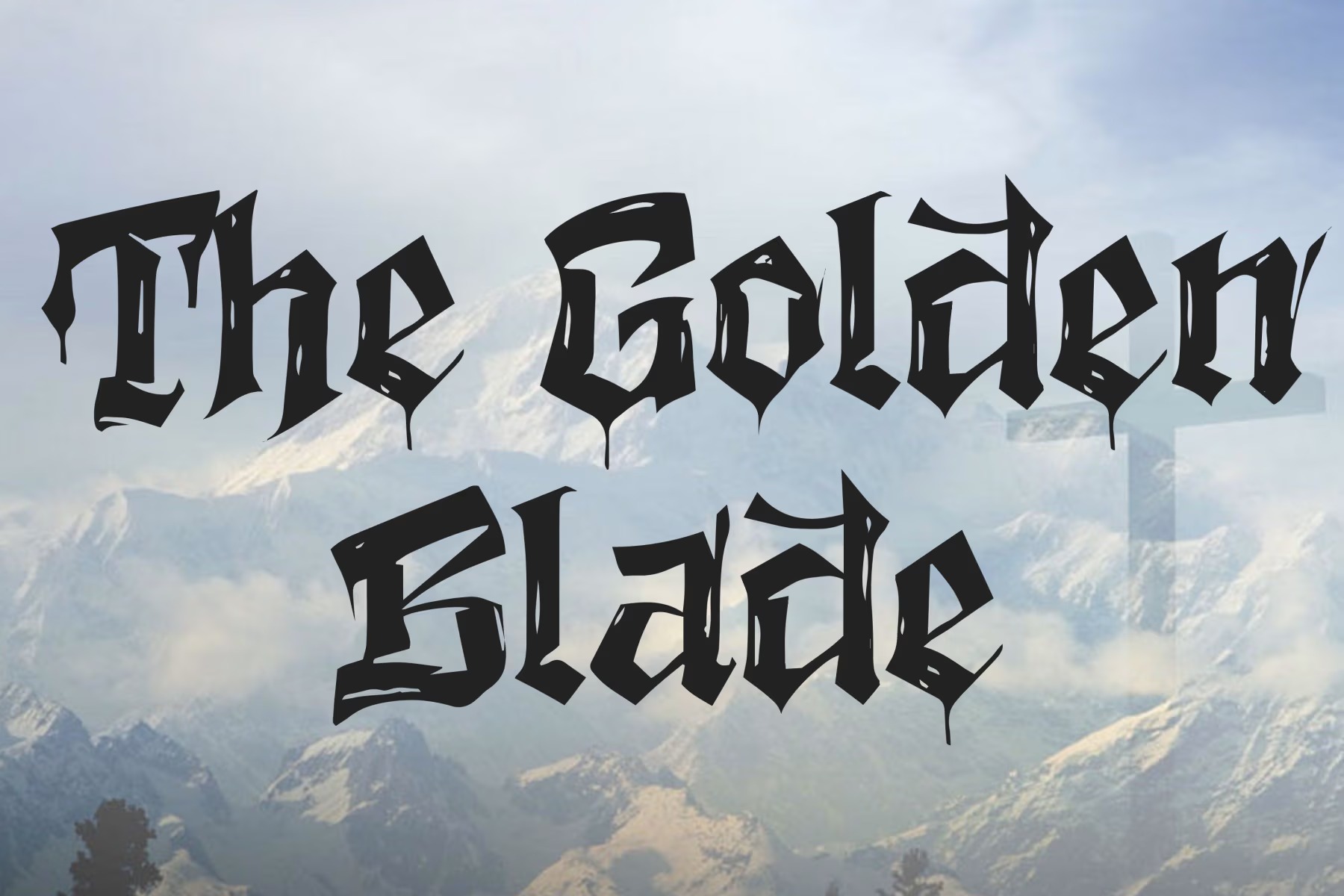
The Golden Blade Font
The Golden Blade Font is a flexible and reliable font created to fit multiple design needs, from branding and packaging to social media and editorial layouts. The Golden Blade is a distinctive display font designed by BlackFridayFont, featuring sharp, bold letterforms with a gothic and medieval-inspired look. Ideal for creating eye-catching headlines, posters, logos, and themed designs.